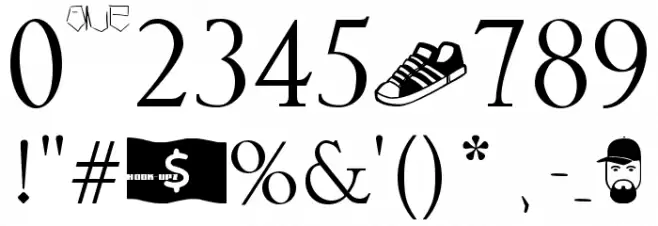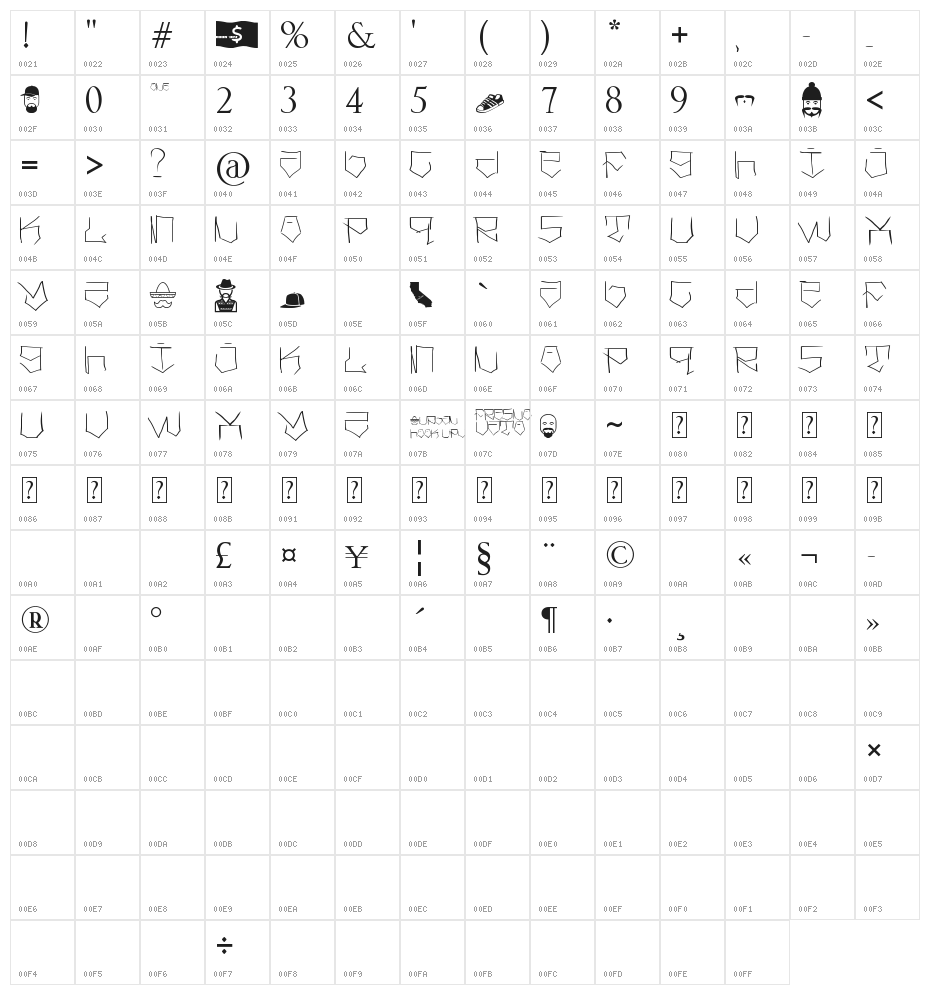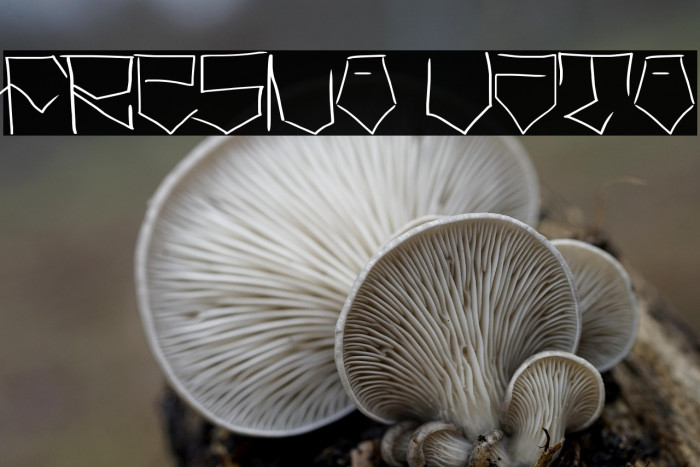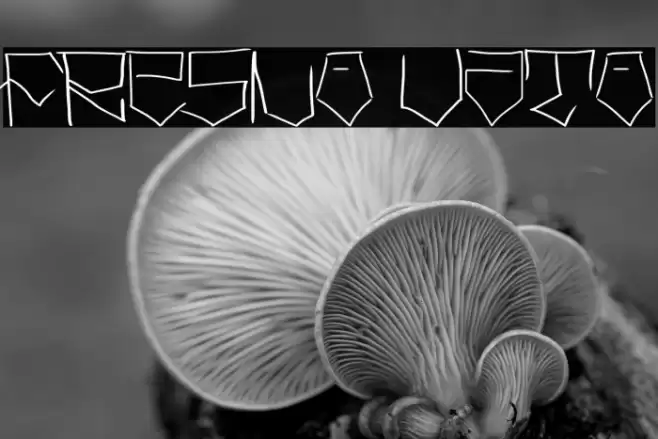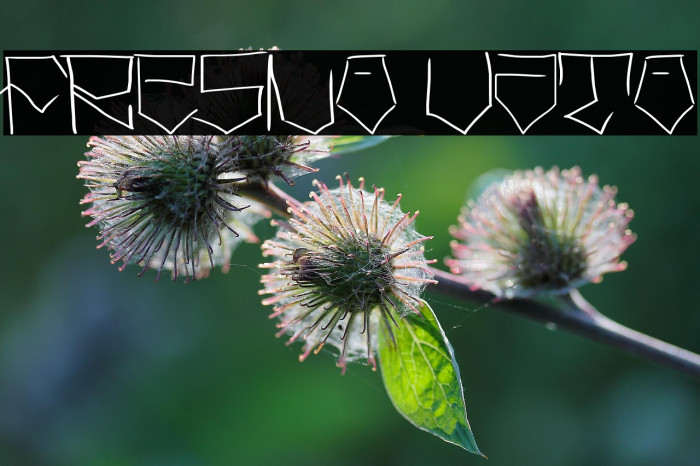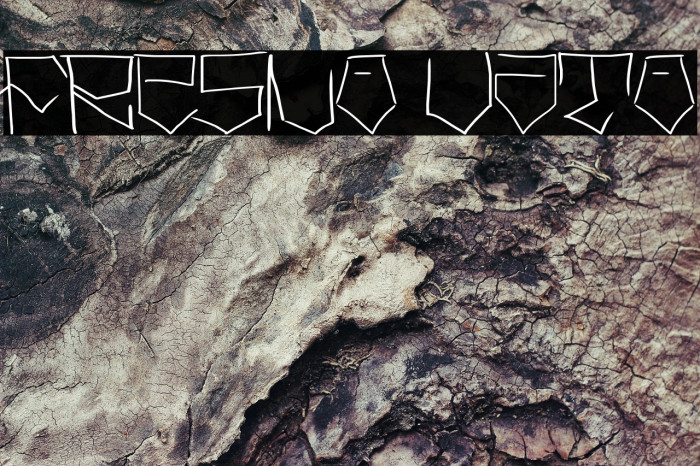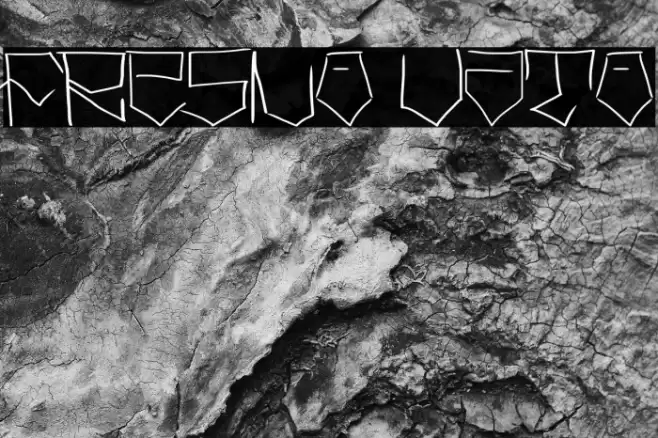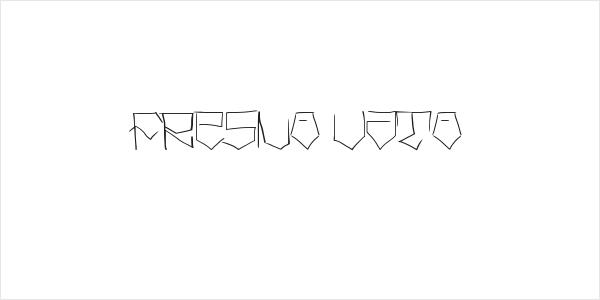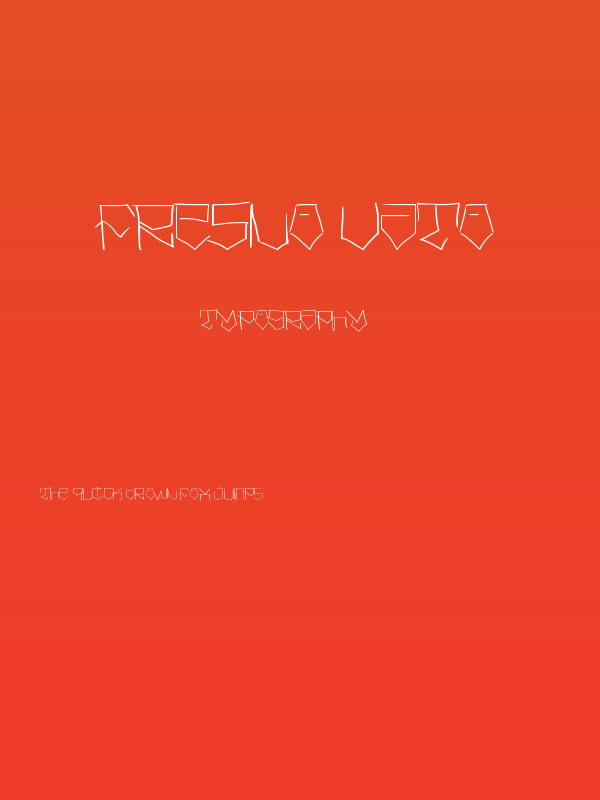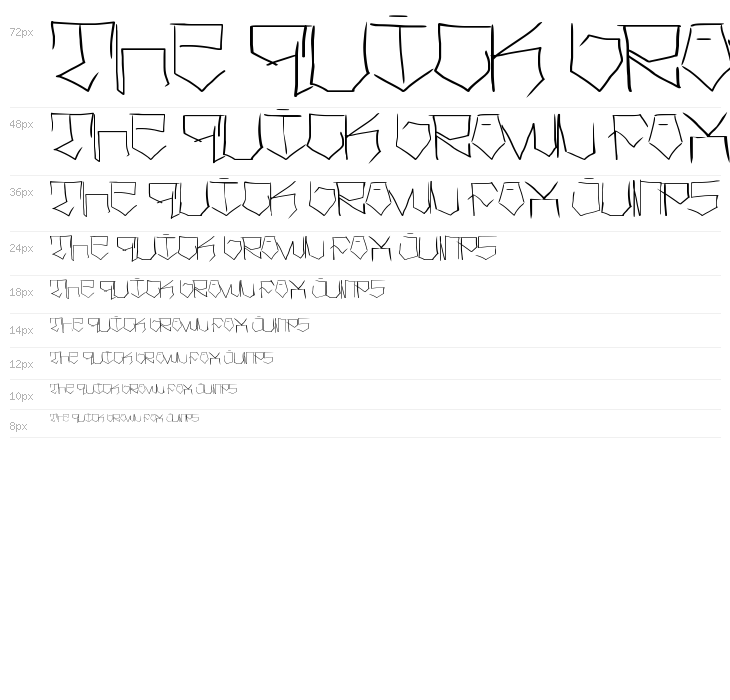
Fresno Vato Font
Fresno Vato Description
This font features a unique, graffiti-inspired style with angular and geometric shapes. The uppercase letters are bold and striking, with sharp edges and a sense of movement that mimics street art. The lowercase letters maintain the same edgy aesthetic, providing a cohesive look throughout. The numbers are bold and clear, while the special characters add a playful touch with their unconventional designs. This font captures an urban, rebellious spirit, making it ideal for projects that require a bold and distinctive visual impact.
Overall StyleUrban, Graffiti, Edgy
Use CaseLogos, Posters, Album Covers
Proposed ProjectsIdeal for street art projects, urban-themed posters, edgy branding, and music album covers.